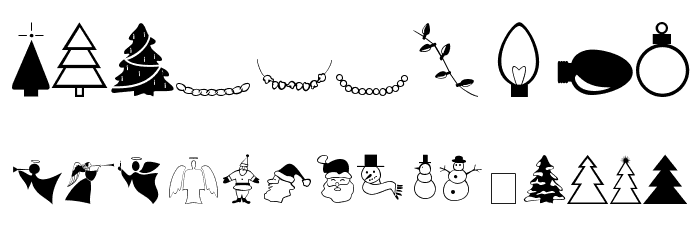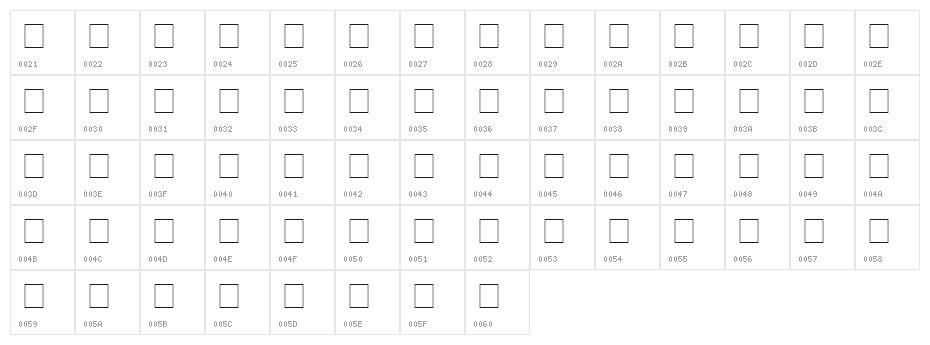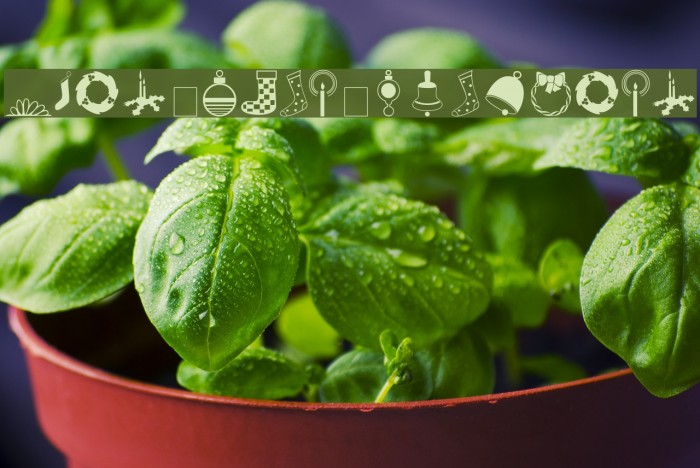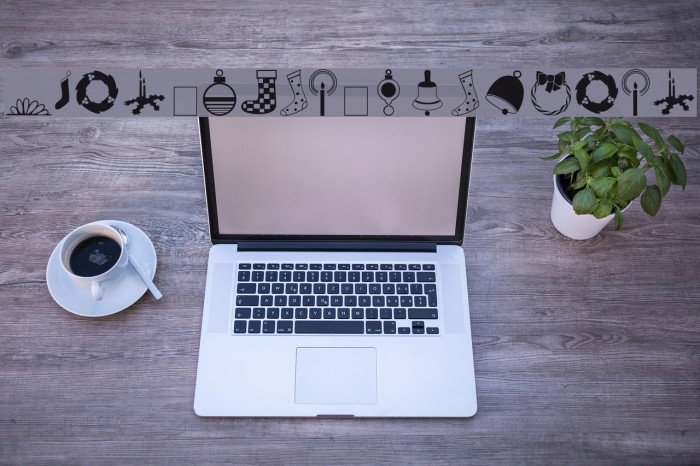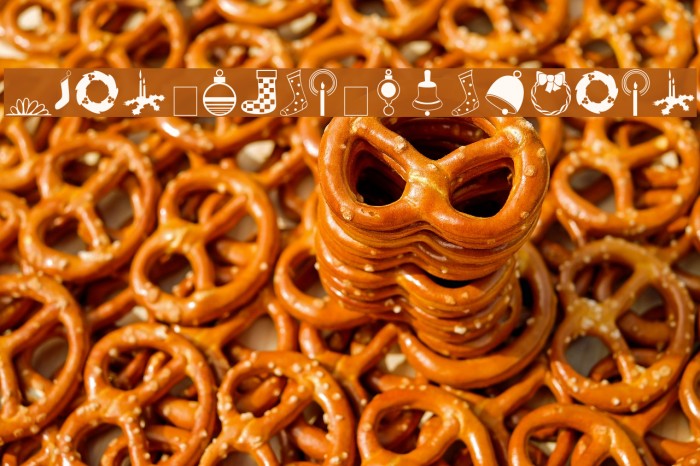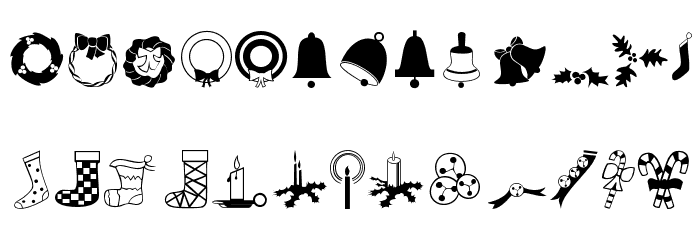
Xmas Font Dingbats Font
Xmas Font Dingbats Description
This collection features a festive array of Christmas-themed dingbats, perfect for adding a holiday touch to any project. The designs include a variety of ornaments, gift boxes, wreaths, bells, stockings, candles, and other iconic symbols associated with the Christmas season. Each symbol is crafted with a playful and decorative style, making them ideal for holiday cards, invitations, and seasonal decorations. The bold lines and clear shapes ensure that these dingbats are easily recognizable and can be used in both digital and print formats. The set captures the joy and warmth of the holiday season, offering a versatile range of symbols to enhance any festive design.
| Use Case | Logos, Headlines |
| Proposed Projects | Holiday cards, festive invitations, seasonal decorations, gift tags, and digital graphics. |